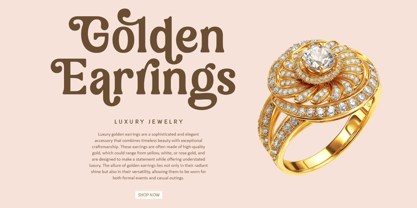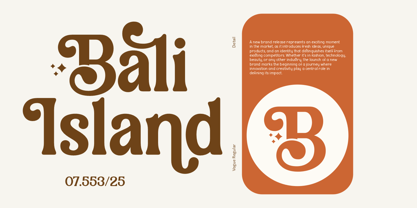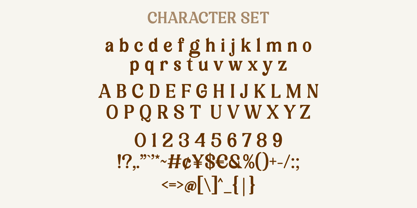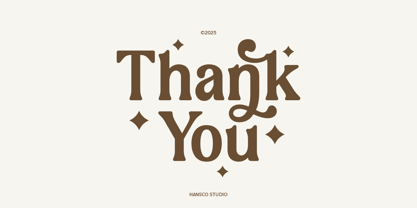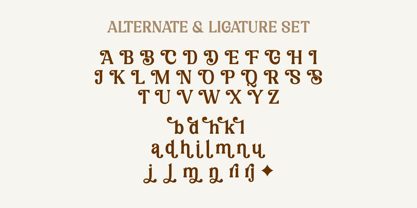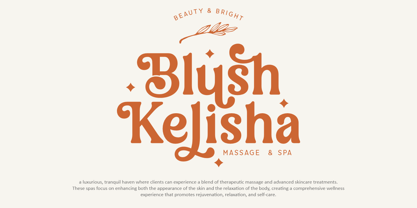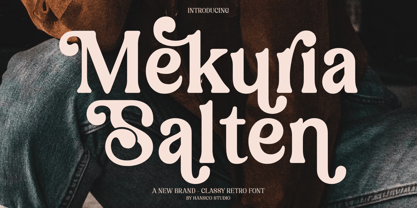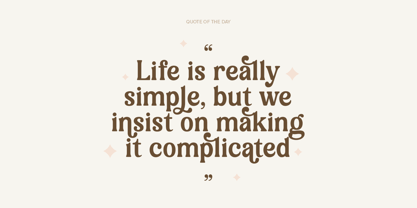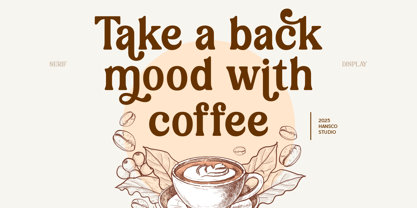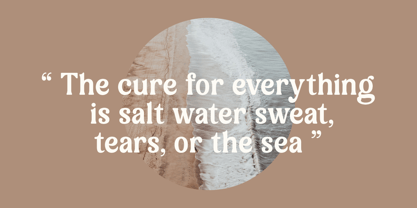
Mekuria Salten
The Mekuria Salten Font Family was designed by Burhan Afif and published by HansCo. Mekuria Salten contains 1 styles. More about this family
Mekuria Salten Font is a simple & clean retro serif font style. You will also get additional alternative swash character fonts that make your design projects amazing. Use this retro serif font to add that special retro vintage touch to any design idea you can think of!. Equipped with all complete characters ranging from uppercase letters, lowercase letters, numbers, punctuation marks and multi-lingual support, this font is ready to be used in any project. Very suitable for logotype, Stickers, Packaging design, Cricut Project, headlines, brand identity, t shirt or apparel industry, posters, magazines, books, YouTube, Instagram, websites, or any of your creative design projects.
Features :
• Uppercase & Lowercase
• Numbers & Punctuation
• Multilingual
• Alternates